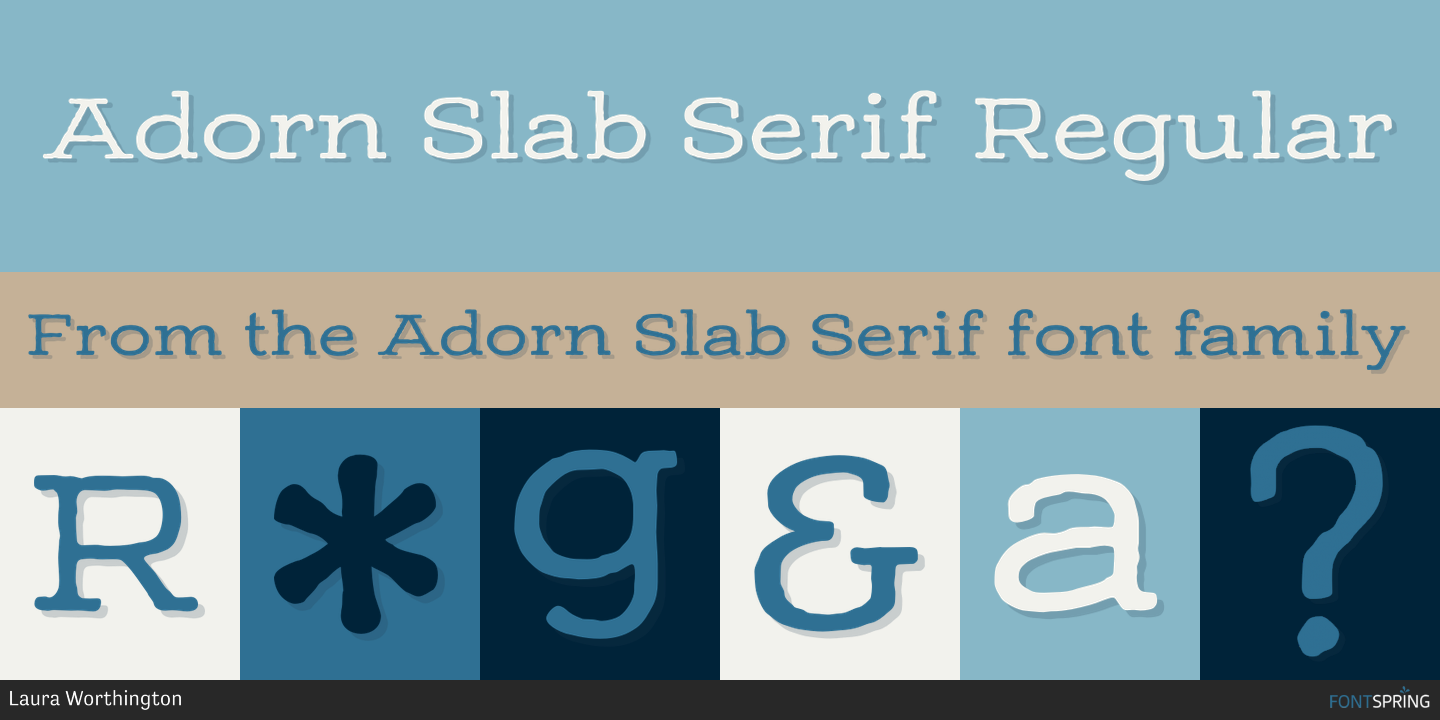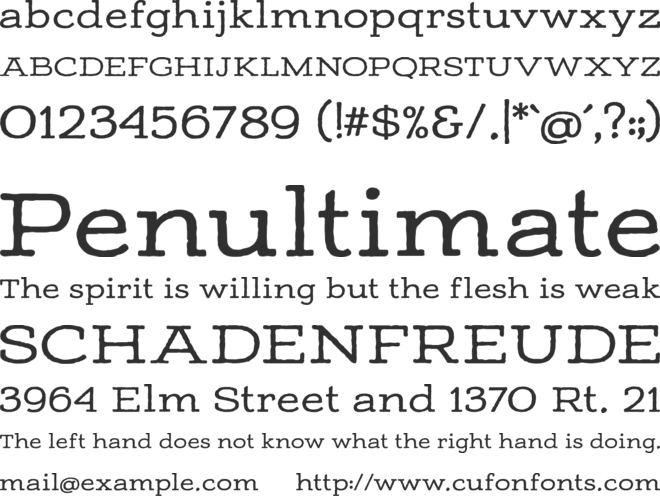
Free and Premium Quality Fonts - Best Premium FontsIt consists of six styles. Font squirrel relies on advertising in order to keep bringing you great new free fonts and to keep making improvements to the web font generator. Adorn slab serif is available in regular and bold weights.
Adorn slab serif font free. Adorn slab serif is available in regular and bold weights. Download adorn slab serif font for pcmac for free take a test drive and see the entire character set. Though these display fonts can also be used for body text their uppercase mode shines adding texture and style to a message. Adorn slab serifs are unique in the adorn collection in that they are all mono weights.
Laura worthington is a typeface designer from washington state. Pt serif coordinates with pt sans on metrics proportions weights and design. Moreover you can embed it to your website with atfont face support. Two caption styles regular and italic are for texts of.
Explore adorn designed by laura worthington at adobe fonts. Adorn slab serifs are unique in the adorn collection in that they are all mono weights. After training and working as a graphic designer since the mid 90s she turned her lifelong fascination with lettering and typography into a business publishing her first typeface in 2010. If you are seeing this message you probably have an ad blocker turned on.
Adorn slab serif desktop font webfont youworkforthem. Though these display fonts can also be used for body text their uppercase mode shines adding texture and style to a message. Pt serif is a universal type family designed for use together with pt sans released earlier.